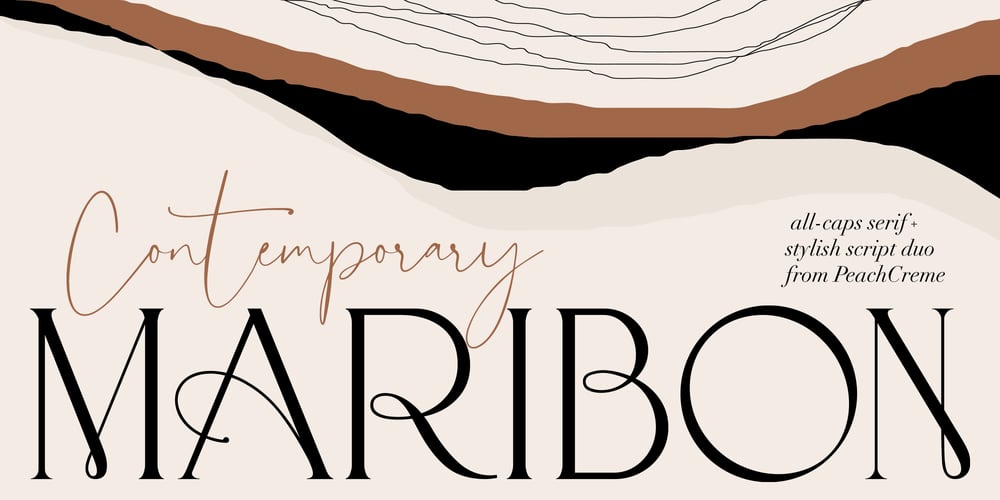
Maribon Script
Maribon Script font
Maribon Script Font Family was designed by Gulya Yeap and published by PeachCreme. Maribon Script contains 2 styles and family package options. Say hello to our brand new font duo “Maribon“ – a contemporary elegant all-caps serif and stylish script font. Maribon Serif • A delicate modern serif includes classy regular and multilingual letters, symbols, punctuation, numerals and brings a touch of character to any design.Maribon Script • A clean, elegant hand-drawn script font with natural flow contains upper & lowercase characters, all punctuation, numerals, and gives a custom-made feel to any text.”Maribon” Font Duo is a perfect choice for logos, headlines, social media posts, invitations and so many more.